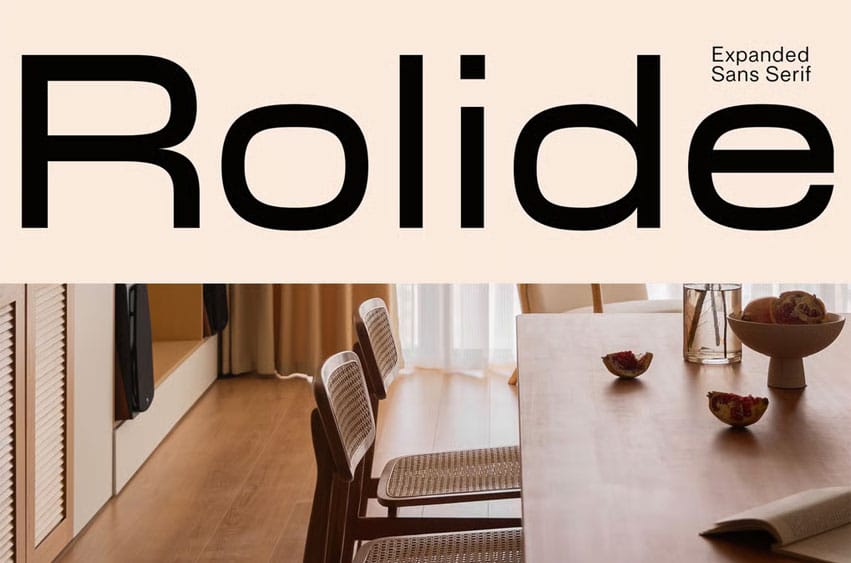
Rolide Font Expanded Sans Serif presents a unique blend of contemporary charm with its wide and boxy shape.
Versatile Design Solution
This font is your versatile design solution, ideal for titles and body text. Its non-bold style strikes a harmonious balance between subtlety and impact.